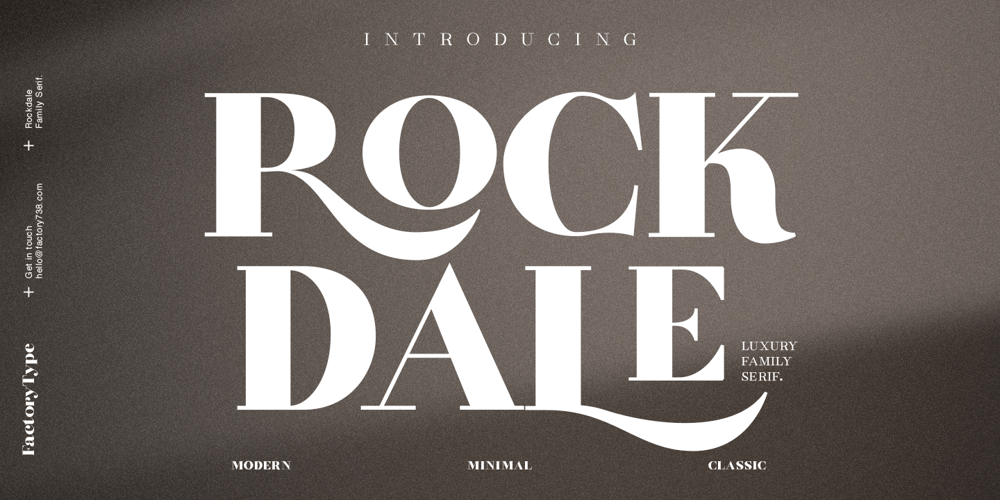
Rockdale Font Family was designed by Wahyu Rahmawan and published by Factory738. Rockdale contains 5 styles and family package options. Rockdale is a bold and luxury serif font that created for brand or logo design purpose. It teases your eyes with its curves yet still able to maintain its modern and classy composure. The variety of weights provide a range of choices that will help you find the best typographic colour. The available stylistic Ligature and Alternate offer a perfect font for anything your creativity takes you. 5 Weights (Light, Regular, Semibold, Bold, Black) Basic Latin A-Z and a-z Numerals & Punctuation Stylistic Alternates & Ligatures Multilingual Support for ä ö ü Ä Ö Ü … Free updates and feature additions Thanks for looking, and I hope you enjoy it.